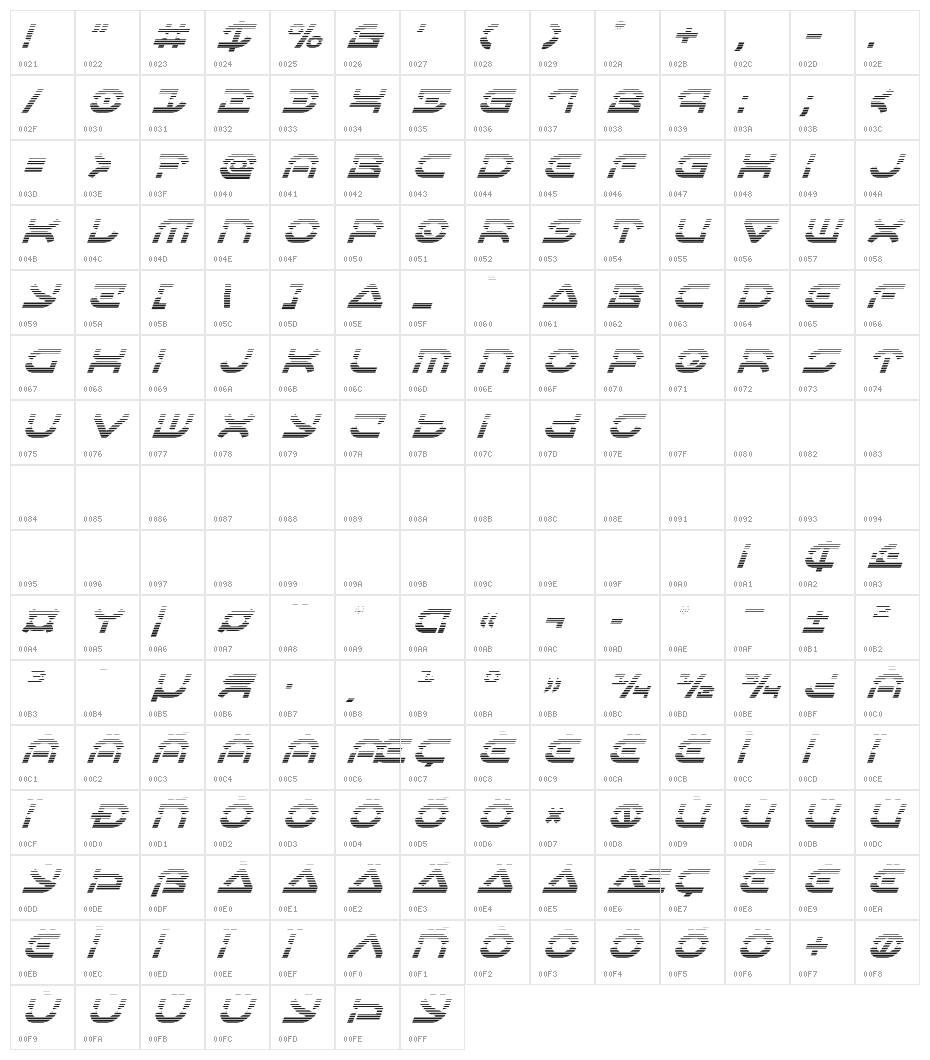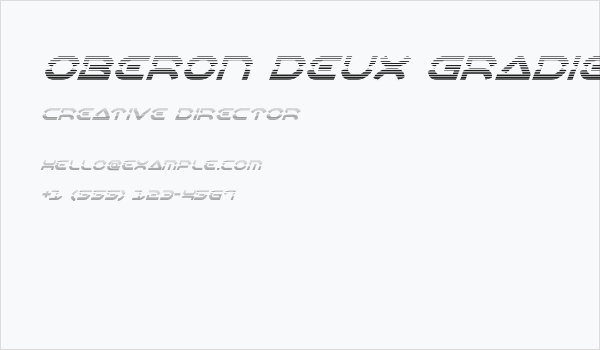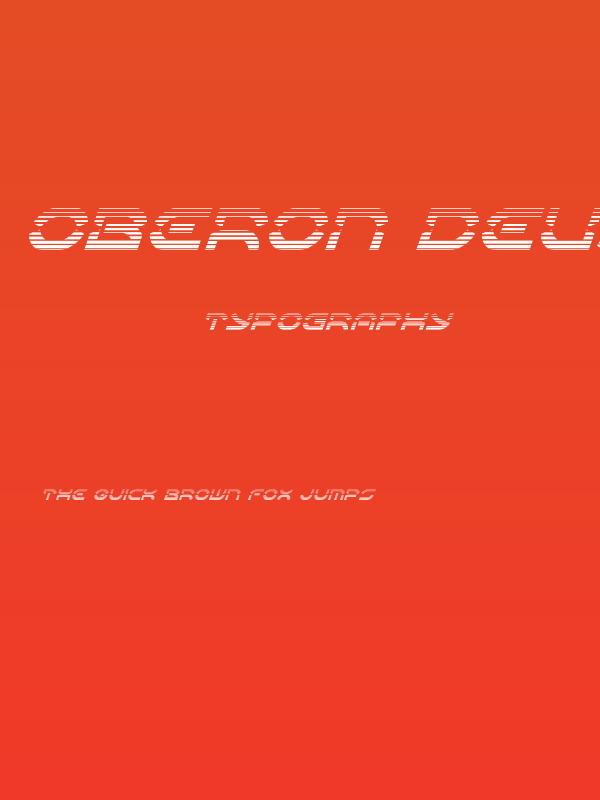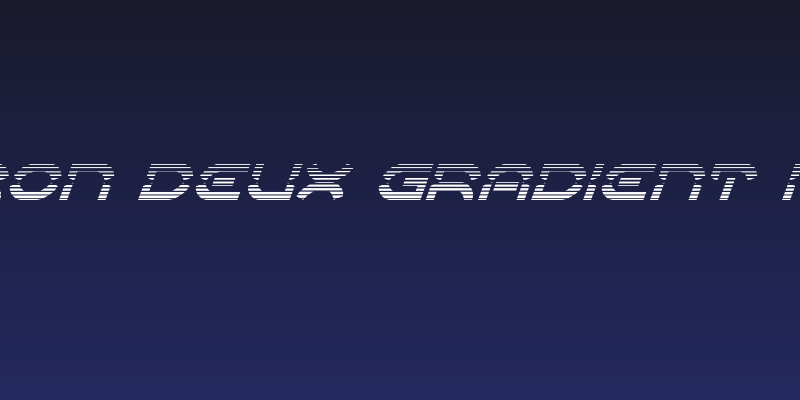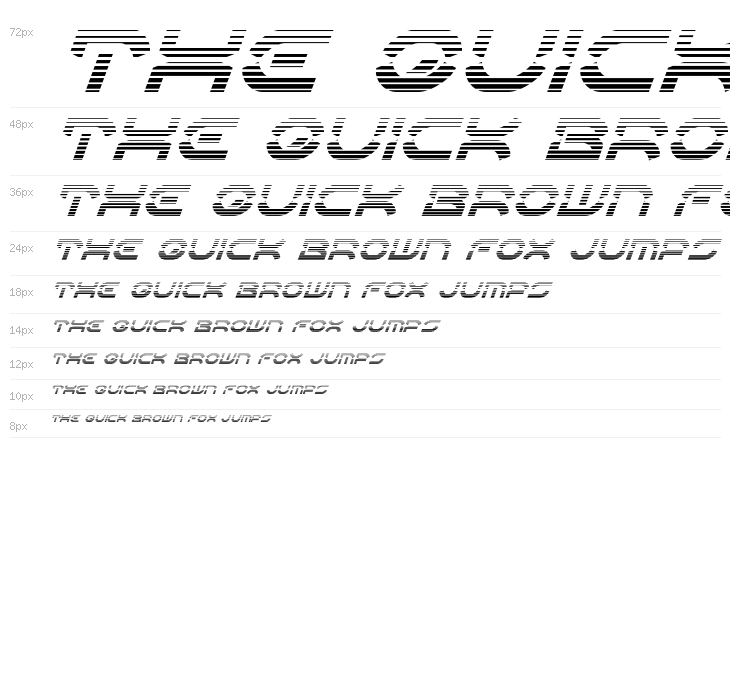
Oberon Deux Gradient Italic Font
Oberon Deux Gradient Italic Description
This font features a futuristic and dynamic design, characterized by its italicized and gradient-striped appearance. The letters are constructed with horizontal lines that create a sense of motion and depth, giving it a unique visual texture. The style is bold and eye-catching, making it suitable for modern and tech-oriented projects. The uppercase and lowercase letters maintain a consistent style, with numerals and special characters following the same design principles. The font's distinct look is both decorative and functional, offering versatility in creative applications.
Proposed ProjectsIdeal for tech branding, sci-fi posters, video game titles, and modern advertisements.